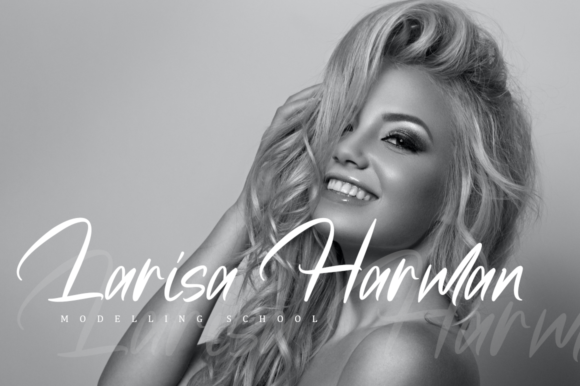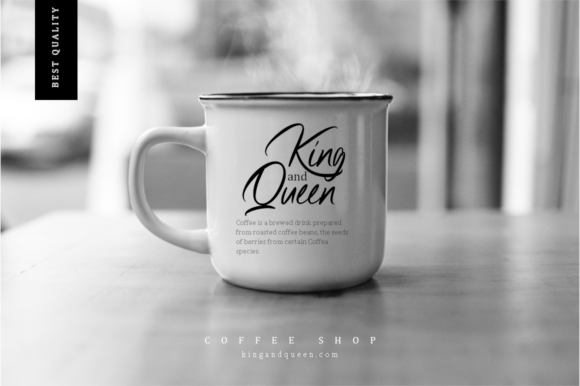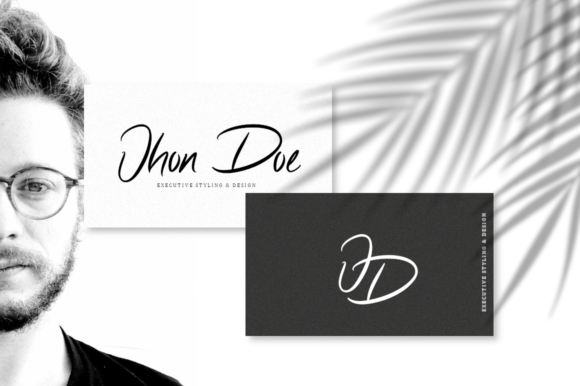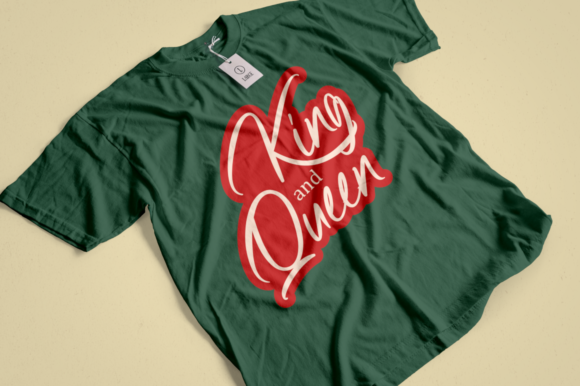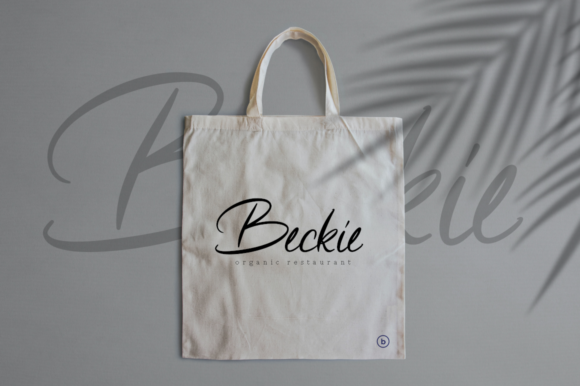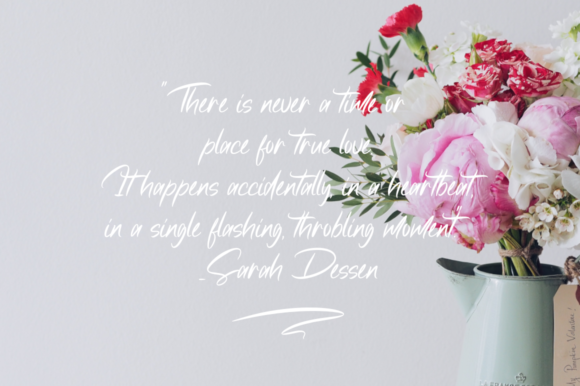
Discover the Charm of Brinleigh Font: Elevate Your Designs with Elegance
In the world of typography, fonts play a crucial role in conveying the tone and personality of a design. Among the numerous fonts available, Brinleigh stands out for its unique blend of casualness and elegance. This beautiful handwritten font has gained popularity among designers and crafters for its versatility and aesthetic appeal. In this article, we’ll explore the features of Brinleigh Font and how it can elevate your designs.
What is Brinleigh Font?
Brinleigh is a casual and beautiful handwritten font that boasts a distinctive, elegant touch. Its fluid strokes and charming letterforms make it an excellent choice for a wide range of design projects. Whether you’re creating logos, wedding invitations, headings, or signage, Brinleigh Font is sure to add a touch of sophistication and whimsy.
Key Features of Brinleigh Font
- Casual yet Elegant: Brinleigh Font strikes the perfect balance between casualness and elegance, making it suitable for both formal and informal designs.
- Handwritten Style: The font’s handwritten style gives it a personal and unique feel, perfect for adding a touch of warmth to your designs.
- Versatile: Brinleigh Font can be used for various purposes, including logos, wedding invitations, headings, t-shirts, letterhead, signage, labels, news, posters, badges, and more.
- Easy to Read: The font’s clear and legible design ensures that your message is conveyed effectively, making it ideal for both print and digital designs.
Uses of Brinleigh Font
Brinleigh Font is an incredibly versatile font that can be used in a multitude of design projects. Here are some ideas to get you started:
- Logos: Create a memorable logo for your brand with Brinleigh Font’s unique and elegant style.
- Wedding Invitations: Add a touch of romance and whimsy to your wedding invitations with this beautiful handwritten font.
- Headings: Use Brinleigh Font to create eye-catching headings for your blog posts, articles, or website.
- T-Shirts: Design custom t-shirts with Brinleigh Font for a stylish and casual look.
- Signage: Create eye-catching signage for your business or event with this elegant font.
Why Choose Brinleigh Font?
With so many fonts available, why choose Brinleigh Font? Here are a few reasons:
- Unique Style: Brinleigh Font offers a distinctive and elegant style that sets it apart from other fonts.
- High-Quality Design: The font is designed with high-quality craftsmanship, ensuring that it looks great in any design.
- Versatile: The font’s versatility makes it suitable for a wide range of design projects.
Tips for Using Brinleigh Font
To get the most out of Brinleigh Font, here are some tips:
- Pair with Other Fonts: Experiment with pairing Brinleigh Font with other fonts to create a unique and visually appealing design.
- Adjust Font Size: Adjust the font size to suit your design needs, ensuring that the text is clear and legible.
- Use in Combination with Images: Use Brinleigh Font in combination with images to create a stunning visual effect.
Brinleigh Font is a beautiful and versatile handwritten font that can elevate your designs with its elegant and casual style. With its unique features, high-quality design, and ease of use, it’s an excellent choice for designers and crafters. Whether you’re creating logos, wedding invitations, headings, or signage, Brinleigh Font is sure to add a touch of sophistication and whimsy. So, why not give it a try and discover the charm of Brinleigh Font for yourself?